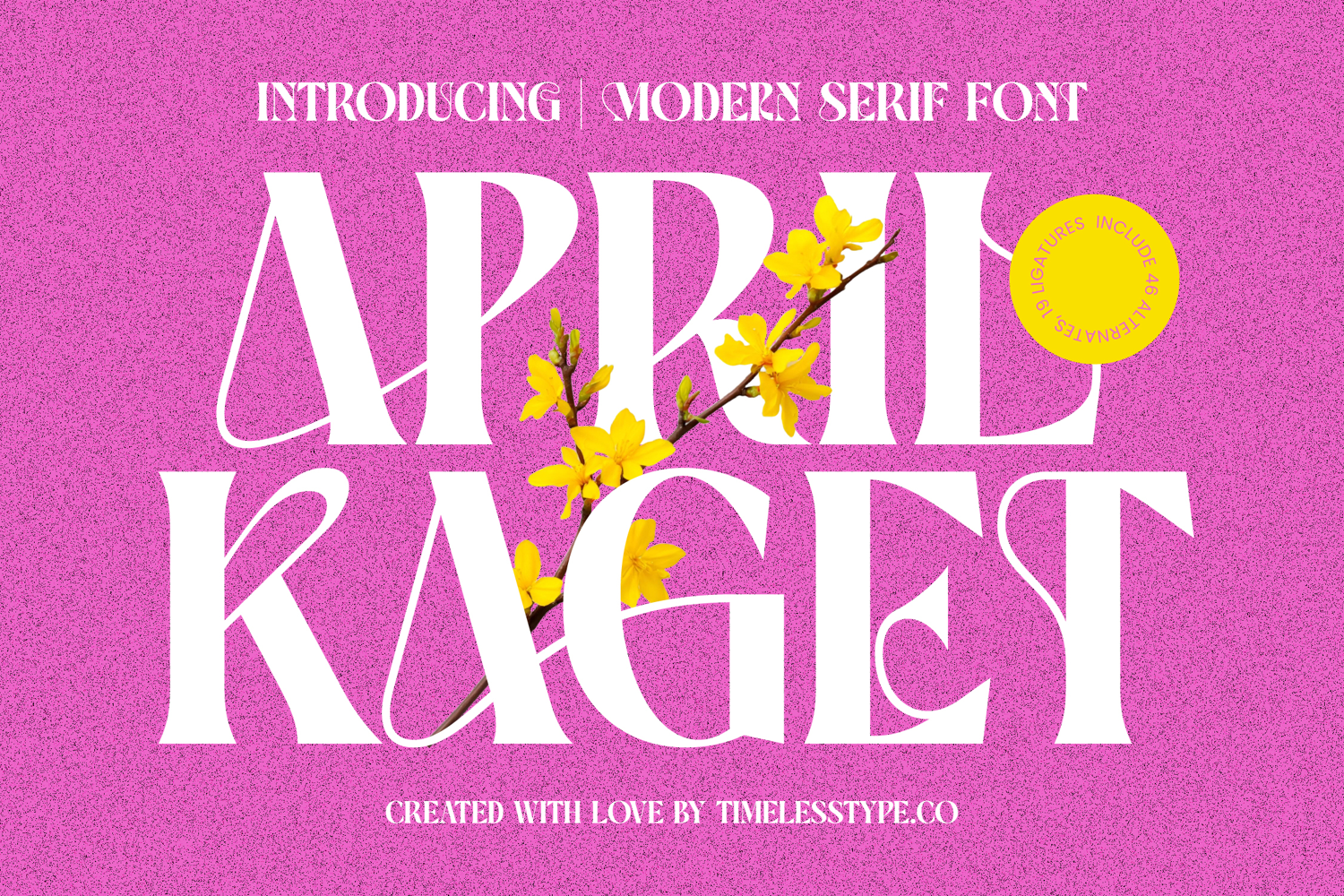
April Kaget - Modern Serif Font
April Kaget
April Kaget Italic
April Kaget - Modern Serif Font
Elevate your design projects with unparalleled elegance. Introducing Font April Kaget - Modern Serif Font Serif Display, a typeface that masterfully blends classical sophistication with contemporary flair. Its striking presence is immediately captivating, designed to command attention and instill a sense of refined luxury in any visual communication. This font is not just text; it's an experience, crafted to make your brand unforgettable.
Discover the exquisite details that define modern typography. Font April Kaget - Modern Serif Font Serif Display features a beautiful high-contrast design with refined serifs and graceful curves that exude a distinct personality. Its character set is thoughtfully developed to provide a harmonious flow, making it perfect for both bold headlines and impactful subtext. The inclusion of unique ligatures and stylistic alternates further enhances its versatility, allowing for truly custom and expressive typographic layouts.
Expand your creative reach across borders with confidence. With its extensive multilingual support, Font April Kaget - Modern Serif Font Serif Display adapts seamlessly across global markets, making it incredibly versatile for international projects. This feature ensures your message retains its intended impact and elegance, regardless of language, facilitating global brand consistency and wider audience engagement.
Transform your vision into a statement of prestige. Font April Kaget - Modern Serif Font Serif Display is perfect for luxury branding, high-end packaging, editorial design for fashion and lifestyle magazines, elegant invitations, and sophisticated website headers. It's the ideal choice for designers aiming to convey exclusivity, style, and an unwavering commitment to quality. Let this display font be the cornerstone of your next distinguished creation.